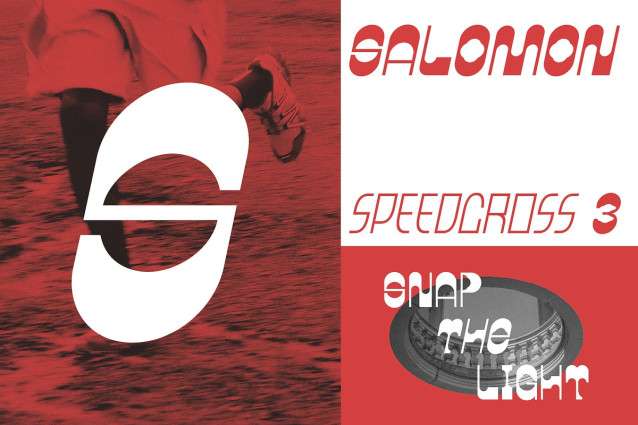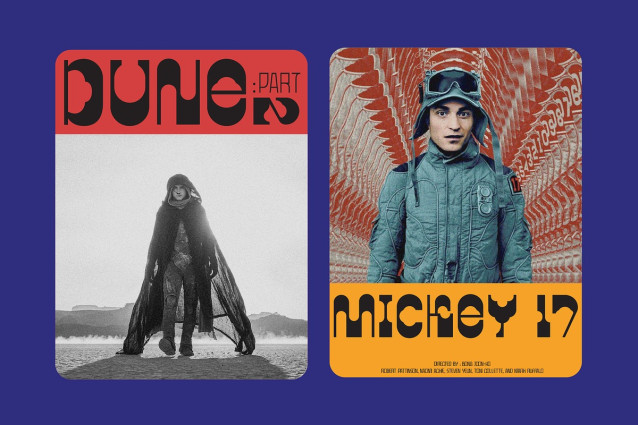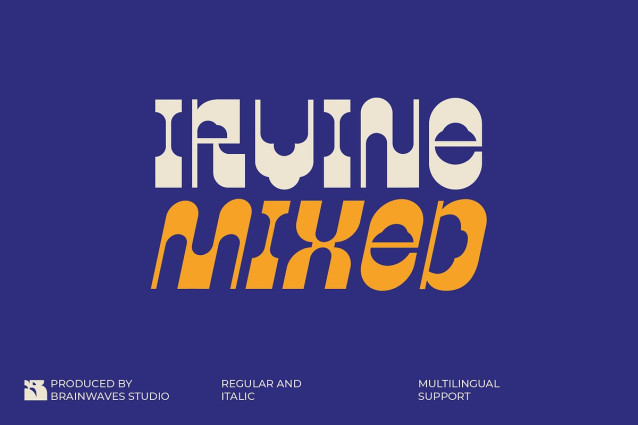
Irvine Mixed Font
Irvine Mixed Font a bold display font made to stand out in any modern design. Perfect for posters, social media, branding, and creative layouts — this font combines retro sci-fi energy with urban editorial vibes.
Its mix of geometric rigidity and curvy movement gives your work instant personality, helping you communicate with confidence and edge. Whether you’re designing for fashion, music, tech, or trends — Irvine Mixed sets the tone.
Use the two styles — Regular & Italic — together to create rhythm, or solo for max impact. Crafted with designers in mind, it’s expressive, versatile, and globally ready.